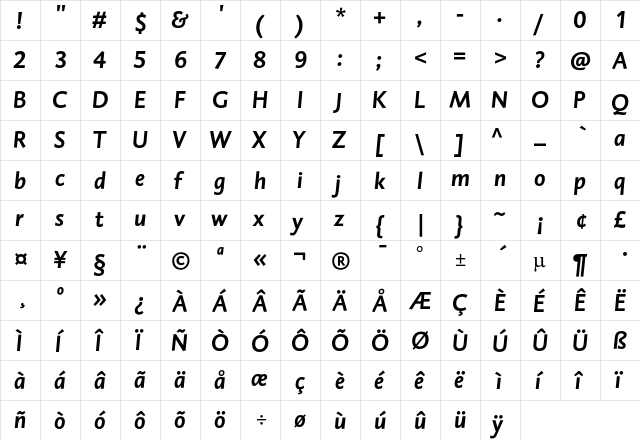
DTL Caspari T Bold Italic
Design Context for DTL Caspari Typeface
DTL Caspari offers clean, dependable letterforms without strong stylistic allegiance, making it a practical choice for designers who need flexibility. Its italic angle brings a sense of urgency and motion to the letterforms. Its bold stroke weight gives it real presence on the page.
Pro Tip: Use DTL Caspari for emphasis, pull quotes, and subheadings where its slanted energy can add rhythm to the layout.